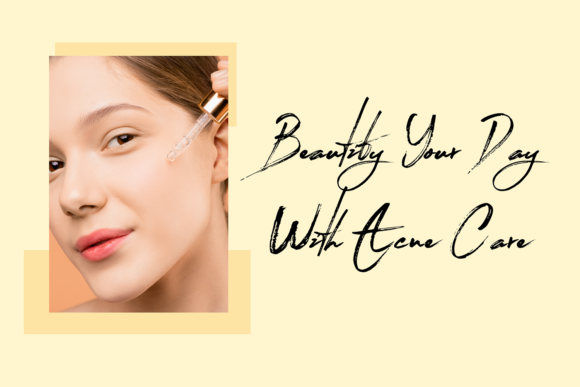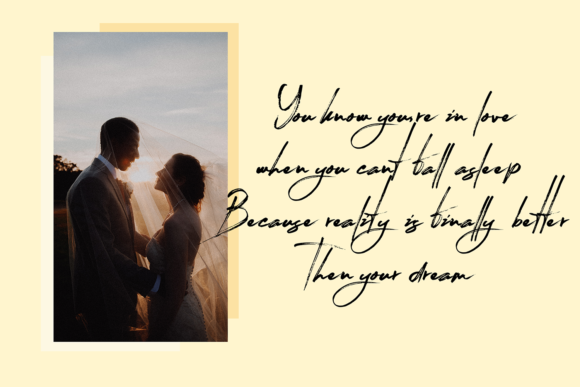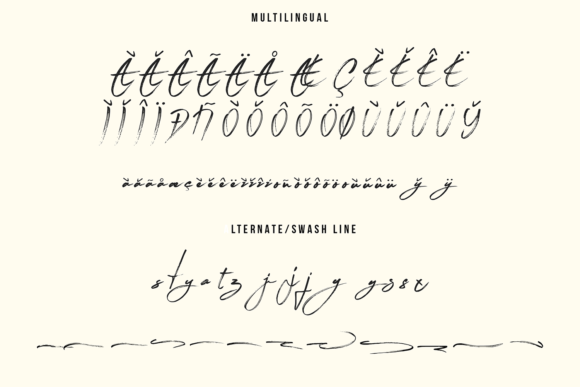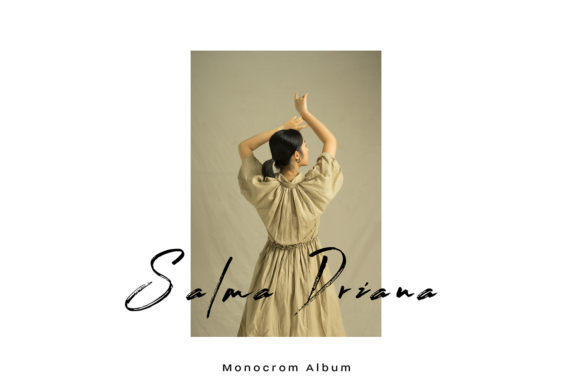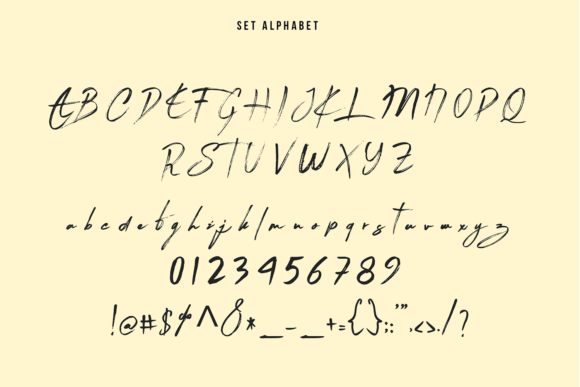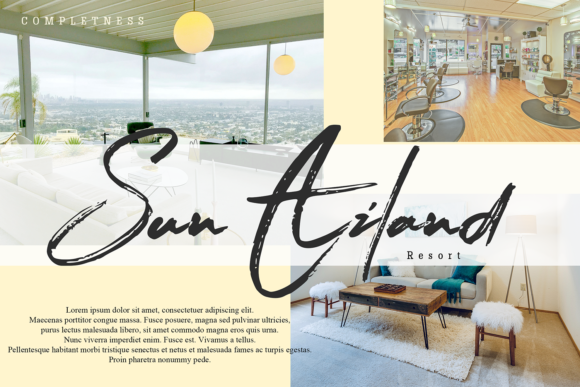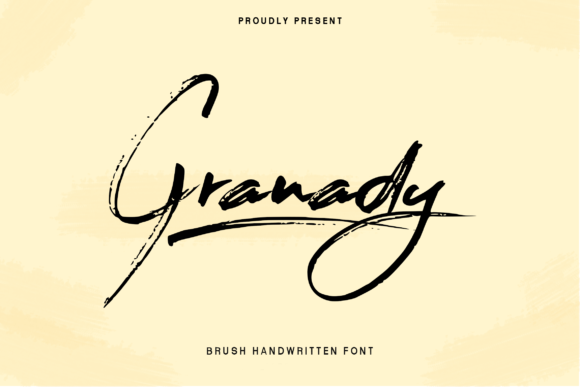
Introducing Granady Font: A Lovely and Romantic Brushed Script Font
Are you a designer or crafter looking for a font that can add a touch of elegance and romance to your creations? Look no further than Granady Font. This beautiful brushed script font is perfect for anyone who wants to add a delicate and sophisticated touch to their designs. In this article, we’ll take a closer look at Granady Font and explore its features, benefits, and uses.
A Delicate Style that Elevates Your Creations
Granady Font is a lovely and romantic brushed script font that features a delicate style, making it an incredible asset to your font library. Its unique and elegant design has the potential to elevate any creation, from wedding invitations and branding materials to social media graphics and more. Whether you’re a professional designer or a crafty DIY enthusiast, Granady Font is sure to inspire your creativity and take your designs to the next level.
Key Features of Granady Font
- Delicate and elegant design: Granady Font features a beautiful, hand-brushed script style that’s perfect for creating romantic and sophisticated designs.
- Versatile and flexible: This font is suitable for a wide range of design projects, from wedding and event planning to branding and advertising.
- Easy to read and use: Despite its delicate style, Granady Font is surprisingly easy to read and use, making it perfect for both digital and print designs.
- High-quality and unique: Granady Font is a high-quality, unique font that’s sure to stand out in any design project.
Benefits of Using Granady Font
So why should you choose Granady Font for your design projects? Here are just a few benefits of using this lovely font:
- Adds a touch of elegance and sophistication: Granady Font is perfect for adding a touch of elegance and sophistication to your designs, making it ideal for high-end branding and marketing materials.
- Creates a romantic and whimsical feel: The delicate, hand-brushed style of Granady Font creates a romantic and whimsical feel that’s perfect for wedding invitations, baby shower announcements, and other special occasions.
- Stand out from the crowd: With its unique and elegant design, Granady Font is sure to help your designs stand out from the crowd and grab attention.
Uses for Granady Font
So what can you use Granady Font for? The possibilities are endless! Here are a few ideas to get you started:
- Wedding invitations and stationery: Granady Font is perfect for creating beautiful, elegant wedding invitations and stationery.
- Branding and marketing materials: Use Granady Font to add a touch of sophistication and elegance to your branding and marketing materials, such as business cards, brochures, and social media graphics.
- Social media graphics: Granady Font is perfect for creating eye-catching social media graphics, such as Instagram posts and Facebook banners.
- Crafting and DIY projects: Granady Font is also great for crafting and DIY projects, such as scrapbooking, card making, and journaling.
In conclusion, Granady Font is a lovely and romantic brushed script font that’s perfect for designers and crafters who want to add a touch of elegance and sophistication to their creations. With its delicate style, versatility, and ease of use, Granady Font is sure to become a favorite in your font library. So why wait? Download Granady Font today and start elevating your designs to the next level!